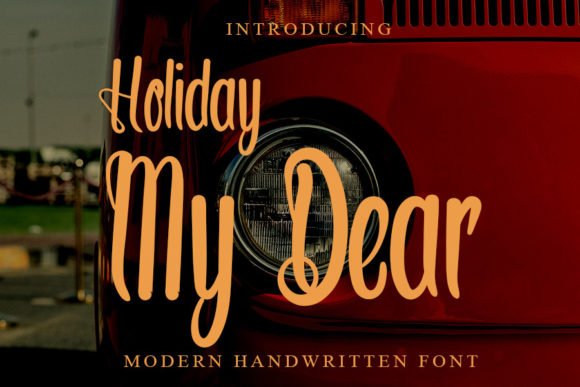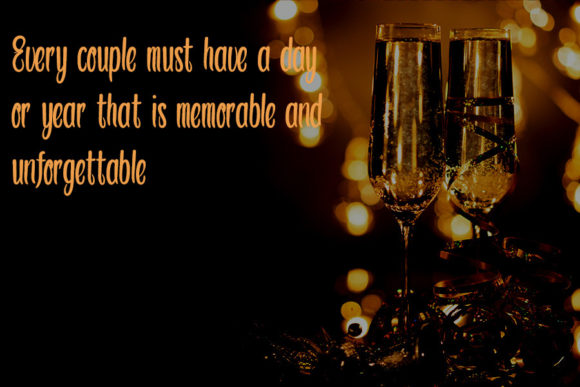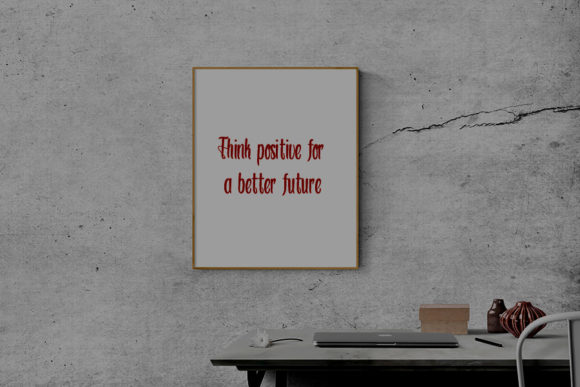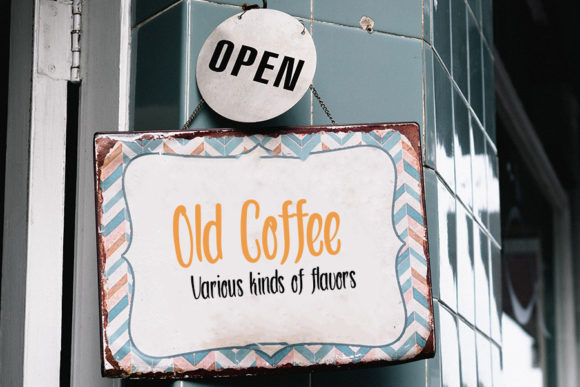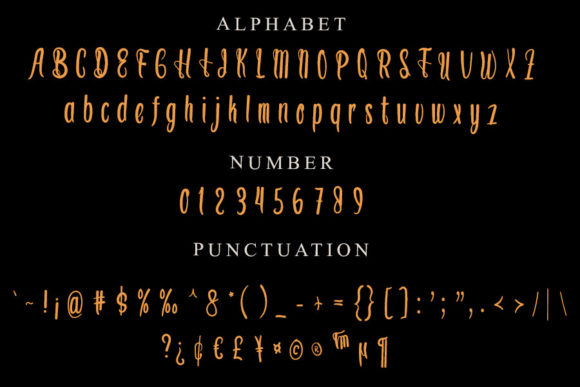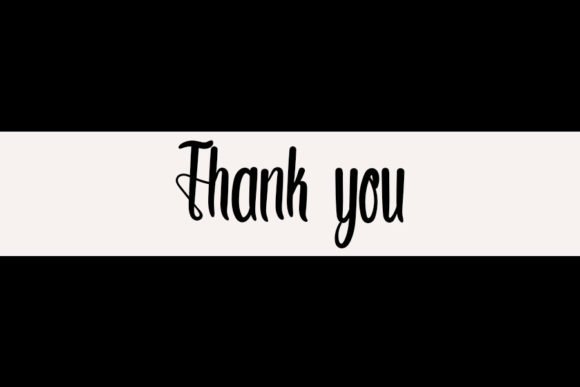
The Perfect Script for Your Next Design Project
Have you ever stared at a blank page, trying to find the perfect font to bring your design to life? I know I have. And then, it hits you – that spark of creativity that makes everything fall into place. For me, it was a winter wonderland-themed invitation I was working on, and I knew exactly what I needed: a beautiful script font that would capture the essence of the season.
That’s when I discovered Holiday My Dear Font – a gorgeous script font that’s as elegant as it is versatile. With its modern vibe and classic calligraphy roots, this font is designed to elevate your projects and make them truly special. Whether you’re working on a holiday card, a wedding invitation, or a social media post, Holiday My Dear Font is the perfect addition to your design toolkit.
For designers, this font is a valuable asset that can help take your work to the next level. With its balanced and varied style, you’ll be able to create stunning designs that capture the attention of your audience. So why settle for an ordinary font when you can have a Holiday My Dear Font that truly makes a statement?
Holiday My Dear Font Key Features
- Font Family: Holiday My Dear Font is a unique, hand-drawn script font, perfect for creating festive and elegant designs.
- Character Set: The font includes a wide range of characters, including uppercase and lowercase letters, numbers, punctuation marks, and special characters.
- Unique Characteristics: Holiday My Dear Font features intricate, hand-drawn details and ornaments, making it ideal for creating holiday-themed designs, invitations, and cards.
Designer Review: Holiday My Dear Font
Overall, I think “Holiday My Dear Font” is a great choice for holiday-themed designs. The font has a lot of charm and personality, which makes it perfect for creating festive and fun materials.
- ✨ The font has a beautiful, hand-drawn feel that’s reminiscent of traditional holiday decorations.
- ✨ The character set is extensive and includes a wide range of punctuation and special characters.
- ✨ The font is highly customizable, allowing you to adjust the size, color, and style to suit your design needs.
- ⚠️ The font may be too whimsical or ornate for some designs, which could make it difficult to read in certain contexts.
- ⚠️ Some users may find the font’s complexity overwhelming, which could make it difficult to use effectively.
Overall, I think “Holiday My Dear Font” is a great choice for designers looking to add a touch of holiday cheer to their designs. While it may have some limitations, its unique charm and versatility make it a valuable addition to any design toolkit.
- Use it for titles and headings to add a touch of elegance and sophistication.
- Combine it with other fonts for a unique and playful look.
- Use it for logos and branding to add a touch of luxury and sophistication.
- Experiment with different font sizes and styles to create a unique and eye-catching design.